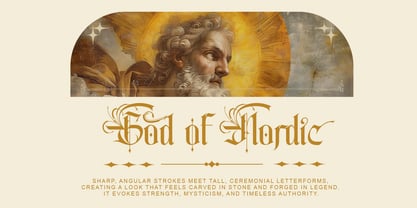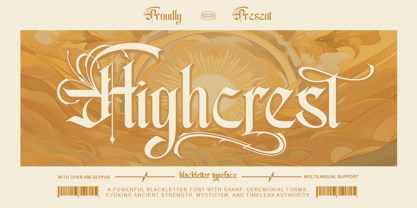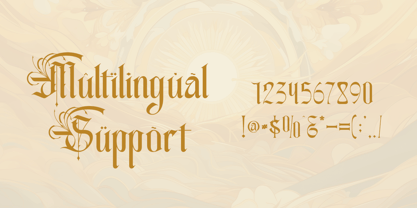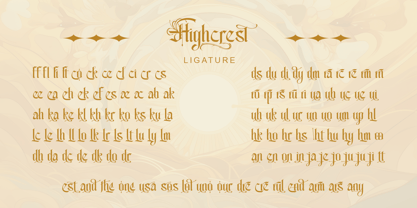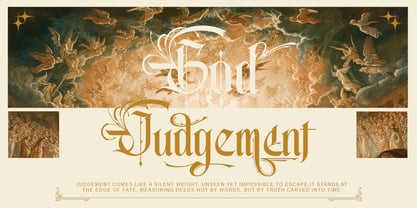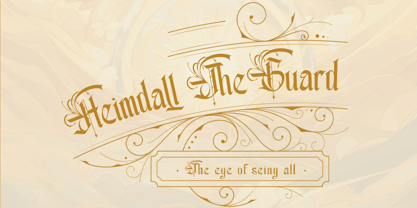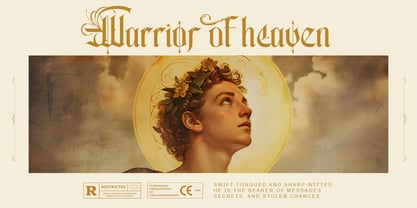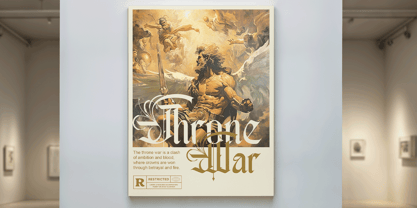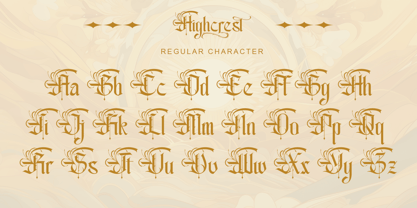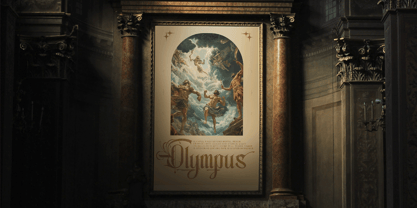
Highcrest
by Letterara
The Highcrest Font Family was designed by Thomas Aradea and published by Letterara. Highcrest contains 2 styles and family package options. More about this family
Highcrest rises from the legacy of medieval blackletter tradition—sharpened, refined, and reforged for the modern era. Born from cathedral arches and ceremonial script, Highcrest is a powerful blackletter font that embodies ancient authority, mysticism, and timeless strength. Every stroke is deliberate. Every serif stands like a fortress. Every glyph carries the weight of heritage and command.   Designed for bold logos, luxury branding, album covers, editorial headlines, packaging, tattoo lettering, and cinematic titles, Highcrest delivers a dramatic gothic presence while maintaining clarity and structure. Its sharp ceremonial forms and commanding vertical rhythm create typography that feels engraved in stone rather than printed on paper.   With over 430 glyphs and full multilingual support, Highcrest offers expansive creative freedom while preserving the integrity of traditional blackletter aesthetics. This is not decoration—it is a declaration. Where heritage meets dominance, and every word stands crowned in power.